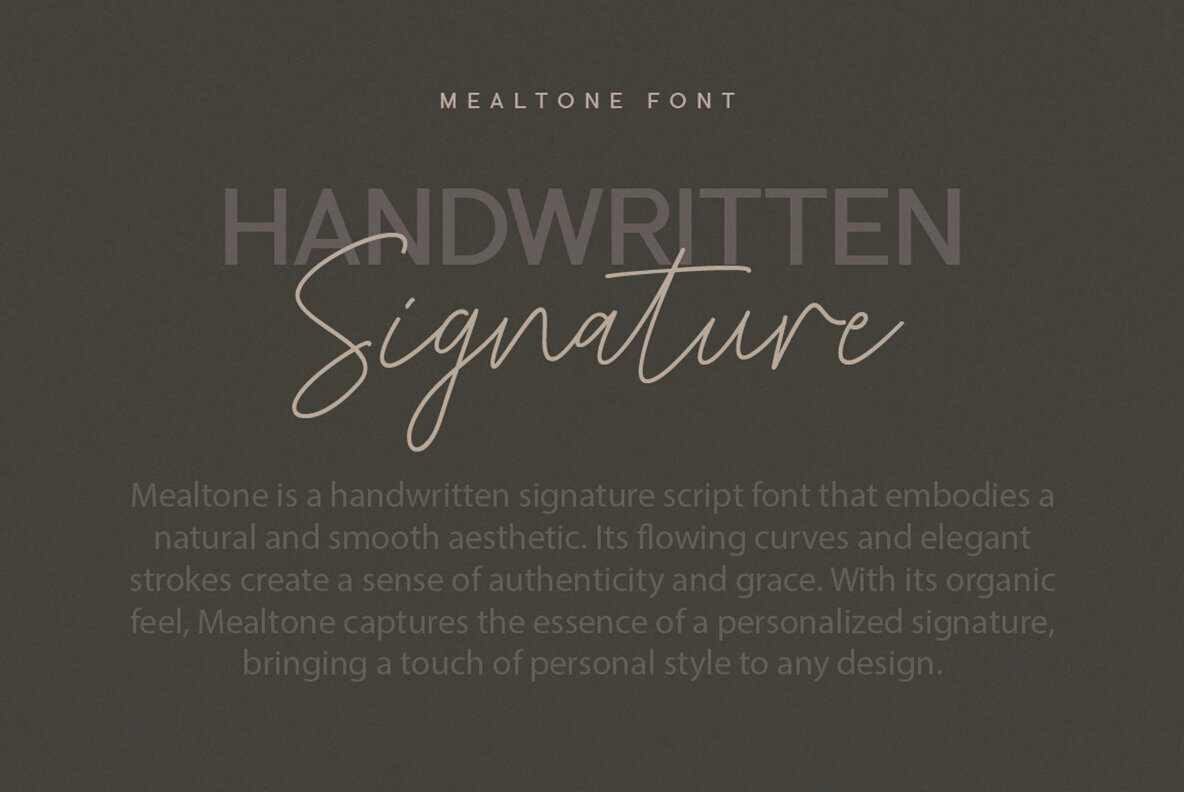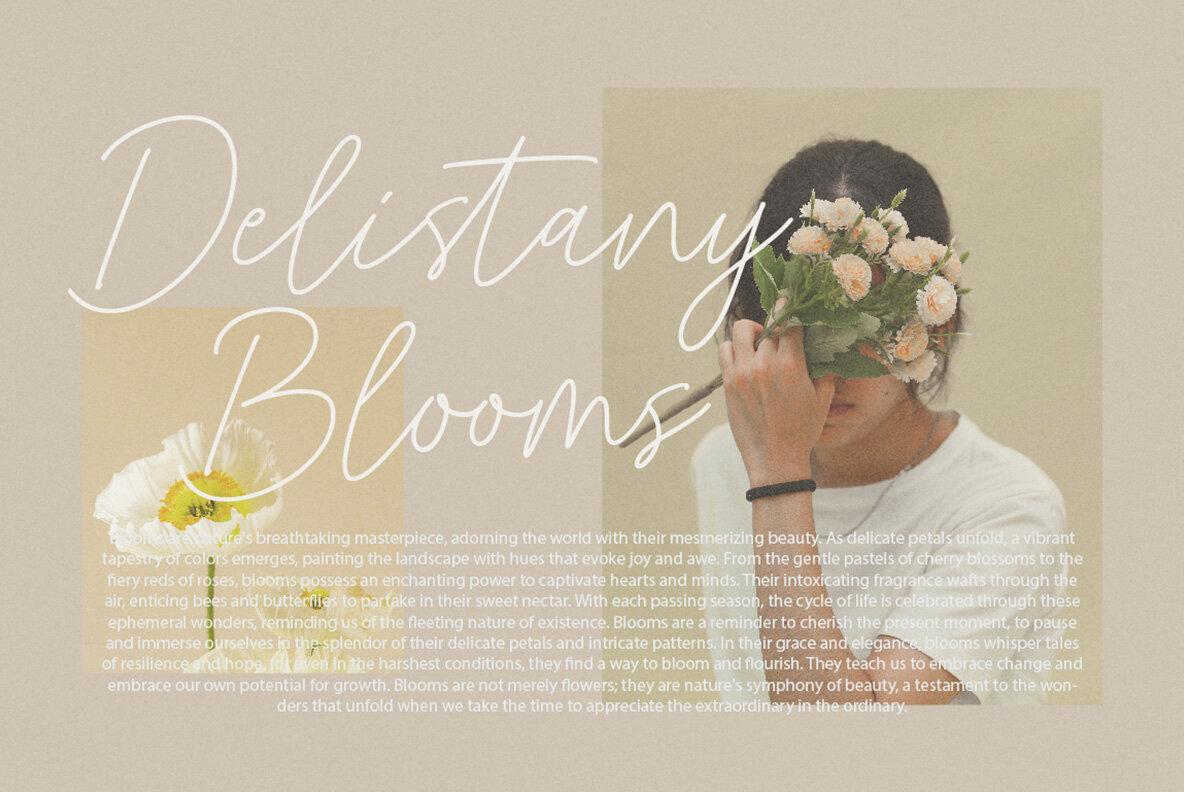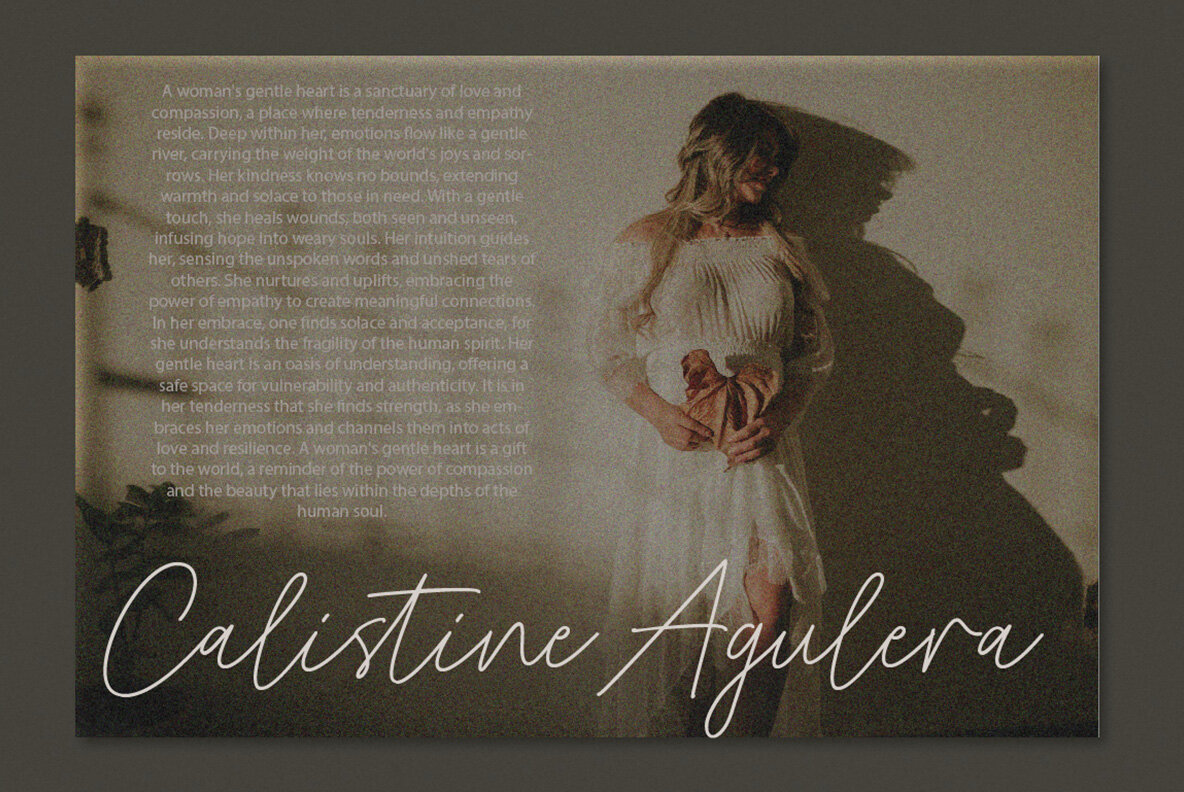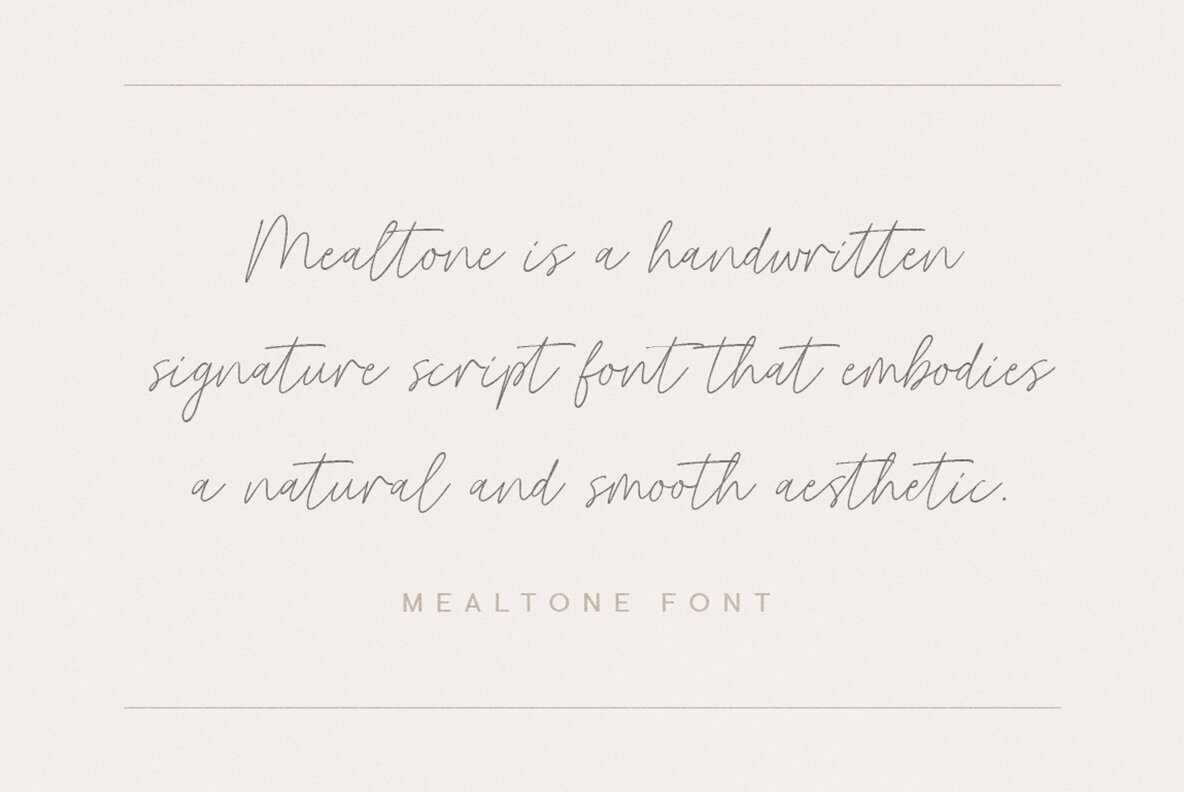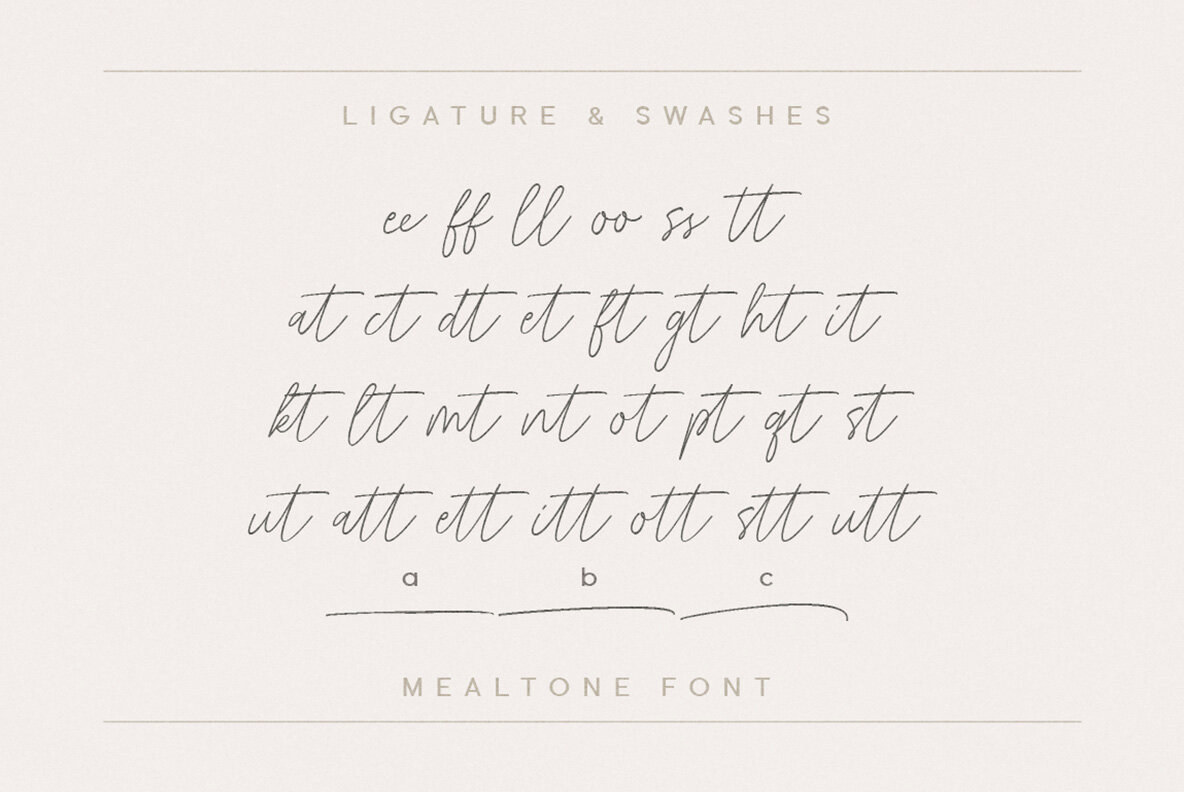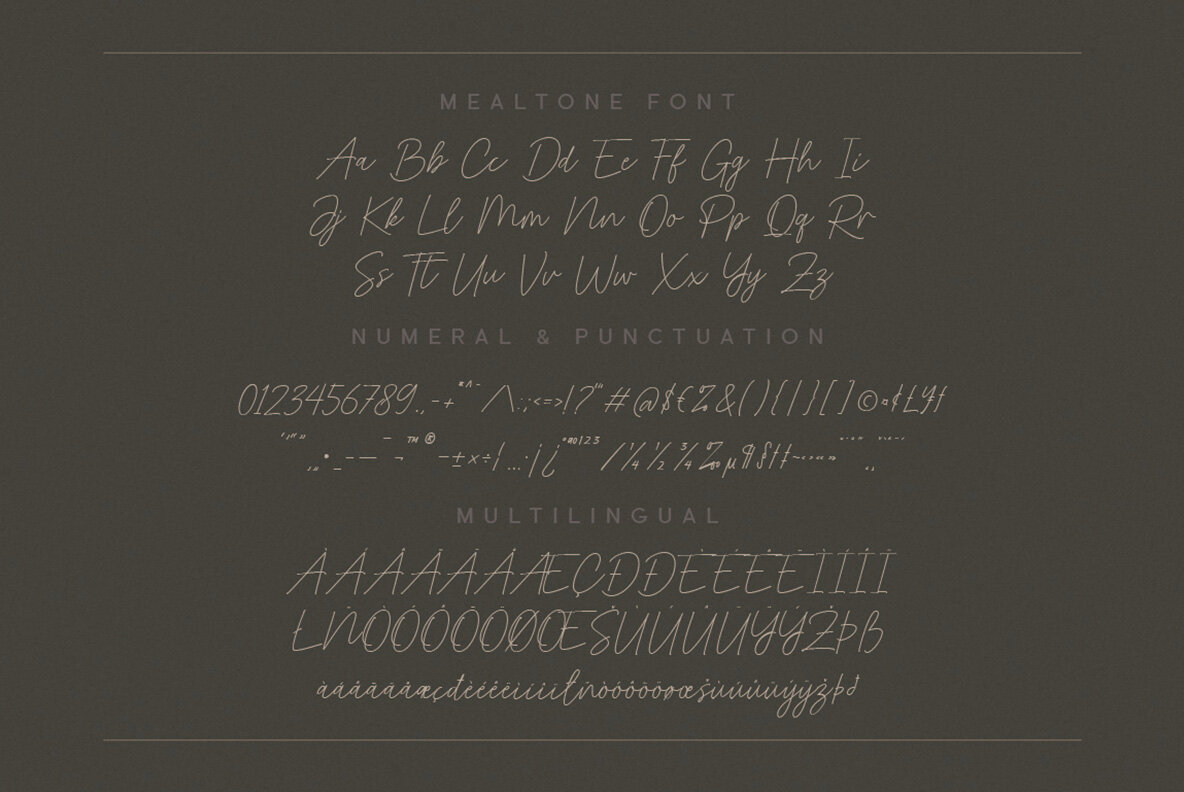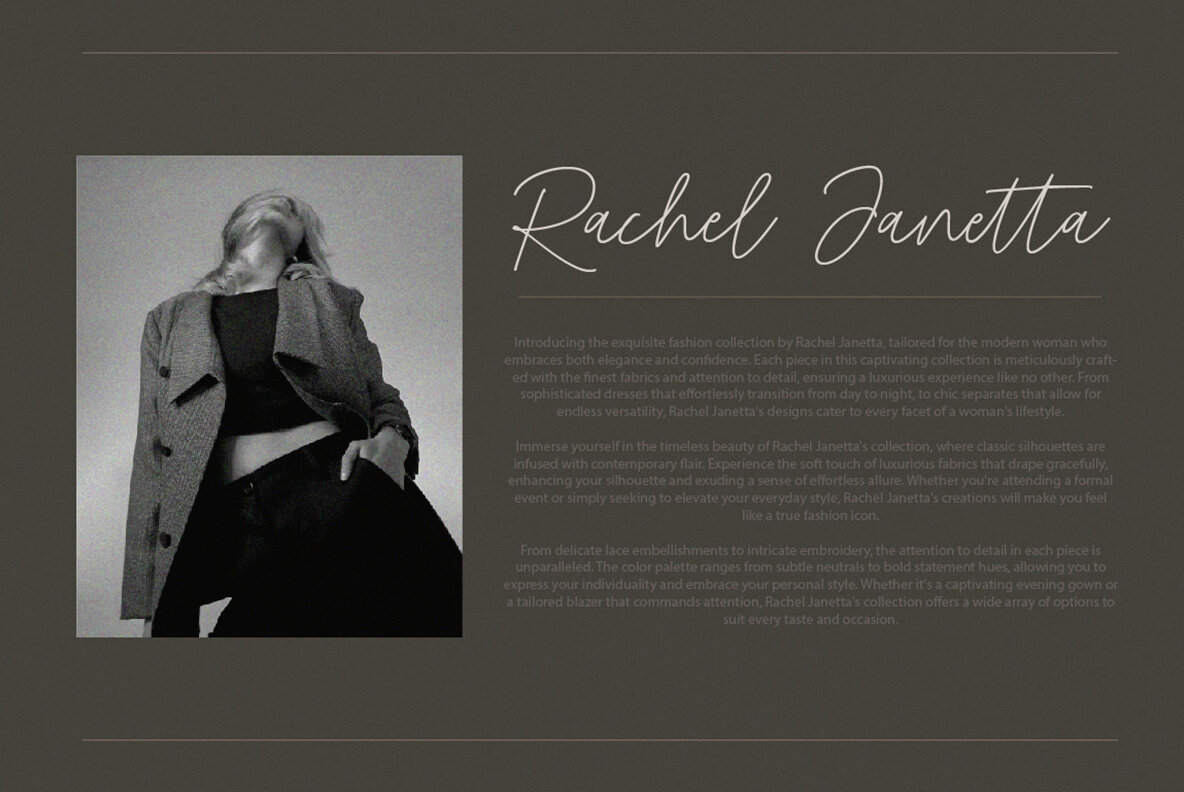
Mealtone Font
Mealtone Regular
Mealtone is a handwritten signature script font that embodies a natural and smooth aesthetic. Its flowing curves and elegant strokes create a sense of authenticity and grace. With its organic feel, Mealtone captures the essence of a personalized signature, bringing a touch of personal style to any design.Mealtone: A Handwritten Signature Script Font